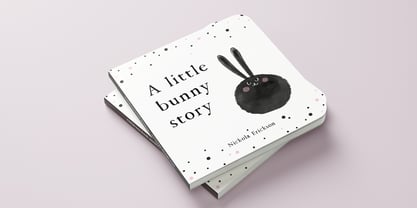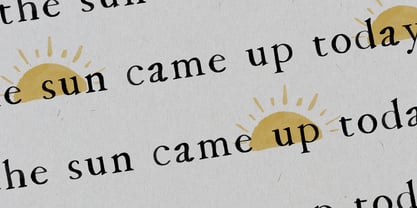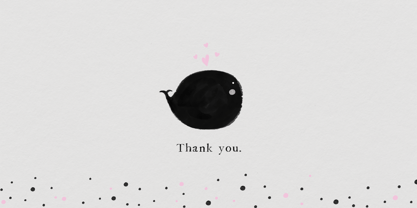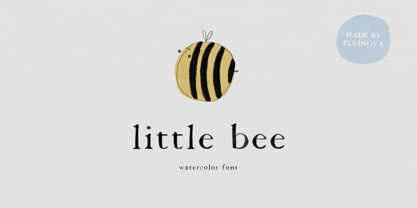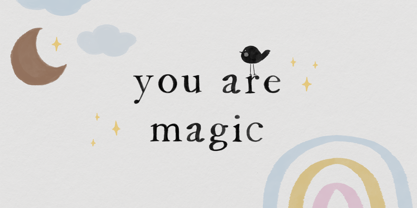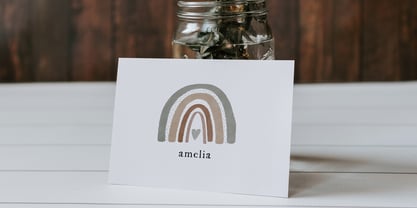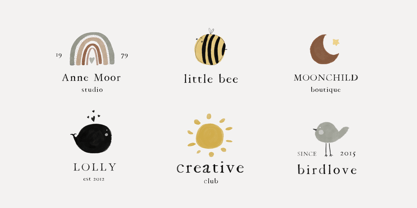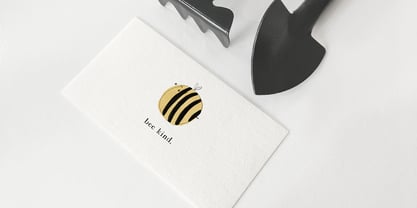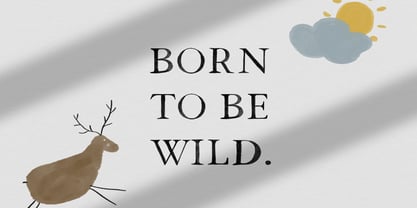
Little Bee Vector
by Elvina Studio
The Little Bee Vector Font Family was designed by Elvina Gafarova and published by Elvina Studio. Little Bee Vector contains 2 styles and family package options. More about this family
Little Bee is a cute serif typeface. Perfect for logos, cards, posters and other designs. So sweet and lovely :)